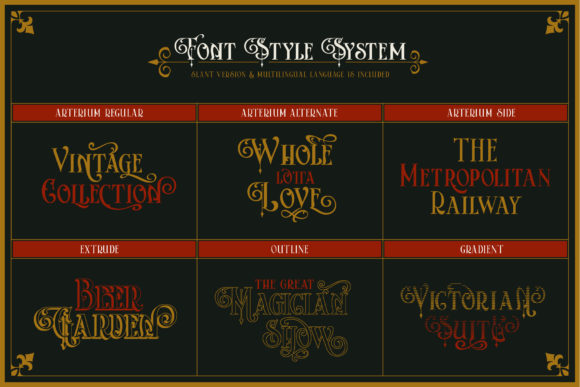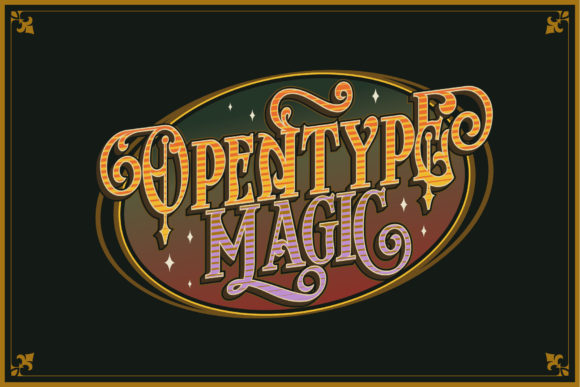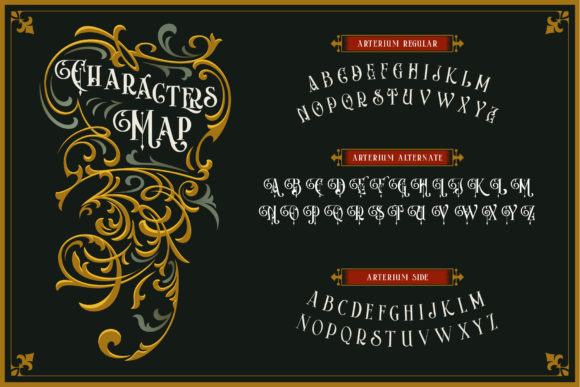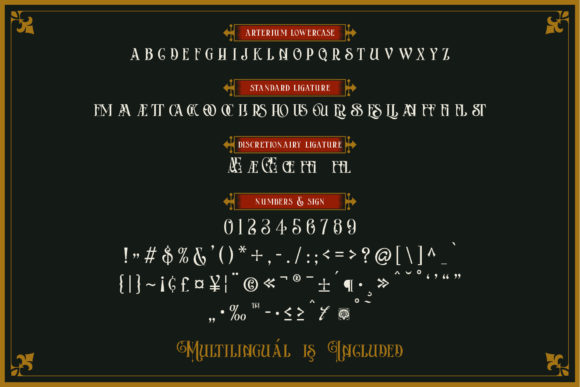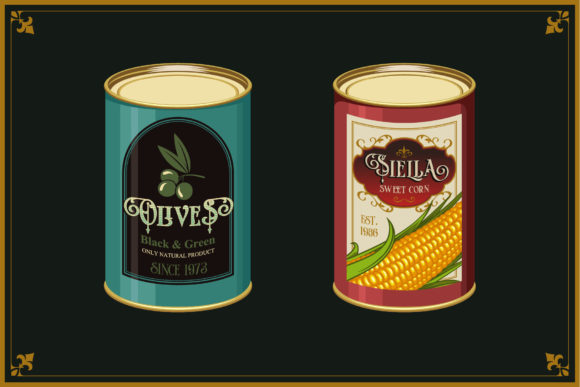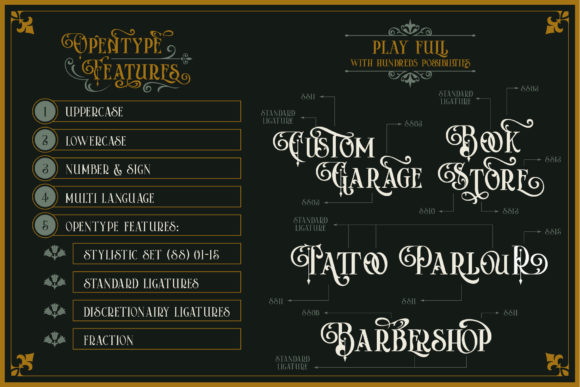
Discover the Elegance of Arterium Font: A Timeless Classic for Your Creative Projects
In the world of typography, few fonts manage to convey the essence of elegance and sophistication as effectively as Arterium Font. This bold, classic, and elegant serif font has been making waves among designers and crafters, offering a unique blend of traditional charm and modern versatility. If you’re on the lookout for a typeface that can elevate your creative projects to new heights, Arterium Font is undoubtedly worth exploring.
The Characteristics of Arterium Font
Arterium Font stands out with its distinctive serif characteristics, exuding a sense of luxury and refinement. Its bold strokes and classic design elements evoke a timeless appeal, making it suitable for a wide range of applications, from high-end branding and editorials to elegant packaging and digital media. The font’s elegant appearance is not just visually striking but also highly legible, ensuring that your message is conveyed with clarity and impact.
PUA Encoding for Enhanced Creativity
One of the key features that set Arterium Font apart is its PUA (Private Use Area) encoding. This means that the font includes a comprehensive range of glyphs and swashes, accessible with ease, allowing designers to experiment with various stylistic variations. PUA encoding unlocks a world of creative possibilities, enabling you to add intricate details and personal touches to your designs. Whether you’re crafting a sophisticated logo, an eye-catching poster, or a beautiful wedding invitation, Arterium Font’s extensive character set provides the flexibility you need to bring your vision to life.
Why Choose Arterium Font?
So, what makes Arterium Font a preferred choice among designers and crafters? Here are a few compelling reasons:
• Elegant and Versatile: Arterium Font’s classic design ensures it can be seamlessly integrated into various projects, from traditional print materials to digital platforms.
• High Legibility: The font’s clear and distinct letterforms make it easy to read, even at smaller sizes, ensuring your message is communicated effectively.
• Creative Freedom: With PUA encoding, you have access to a wide range of glyphs and swashes, giving you the creative freedom to experiment with different styles and effects.
• Time-Saving: Arterium Font’s extensive character set and elegant design save you time and effort, allowing you to focus on the creative aspects of your project.
Incorporating Arterium Font into Your Projects
Adding Arterium Font to your library is a straightforward process that can significantly enhance your design capabilities. Here are some tips on how to make the most of this elegant typeface:
• Branding and Logos: Use Arterium Font to create sophisticated logos and brand identities that convey luxury, elegance, and professionalism.
• Print Materials: Elevate your print materials, such as brochures, flyers, and business cards, with Arterium Font’s classic and refined appearance.
• Digital Media: Arterium Font is also suitable for digital platforms, including websites, social media graphics, and email newsletters, where its legibility and elegance can make a lasting impression.
• Special Projects: For special projects like wedding invitations, event posters, and packaging, Arterium Font’s unique swashes and glyphs can add a personal touch and make your designs stand out.
Arterium Font is more than just a typeface; it’s a design statement that can elevate your creative projects to new levels of sophistication and elegance. Its bold, classic, and elegant serif design, combined with PUA encoding for enhanced creativity, makes it an invaluable addition to any designer’s library. Whether you’re working on a branding project, a print material, or a digital platform, Arterium Font offers the versatility, legibility, and aesthetic appeal you need to make a lasting impression. Discover the elegance of Arterium Font today and unlock a world of creative possibilities.